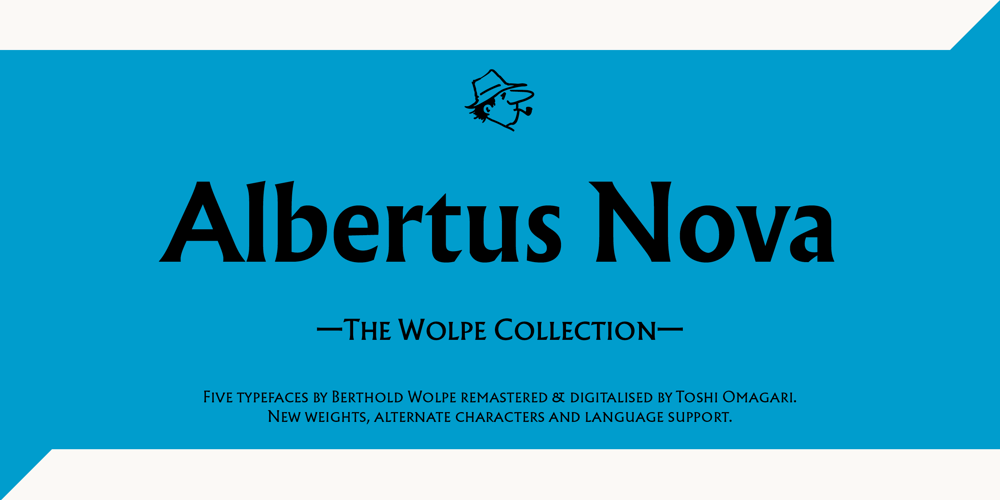
Albertus Nova Font Family was designed by Berthold Wolpe, Toshi Omagari and published by Monotype. Albertus Nova contains 5 styles and family package options. Albertus® Nova is a faithful digital revival of Berthold Wolpe’s earlier design of Albertus and is one of the five designs in The Wolpe Collection of typefaces. This new design enlarges the typeface set from its previous two weights into a robust set of five ranging from thin to black, all with extended language support including Cyrillic and Greek. Berthold Wolpe began working on Albertus in 1932, at the encouragement of Stanley Morison. Morison saw an example of Wolpe’s engraved lettering and liked it so much that he commissioned a typeface based on the design. Since then, the original Albertus typeface has been used on book covers, in branding, on signs and in video games.